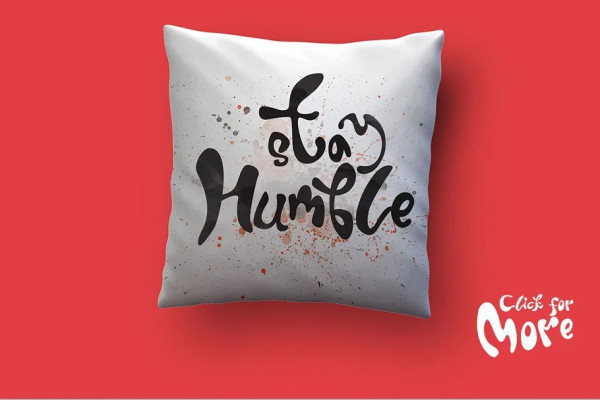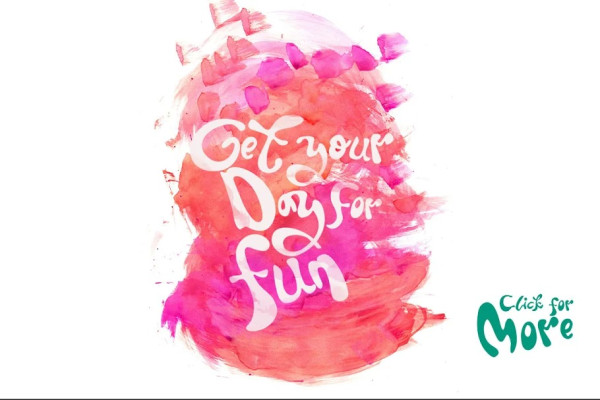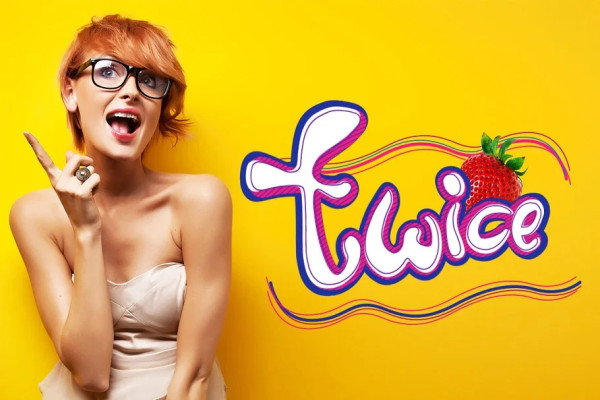
Twice Display Font
Twice Display Font, inspired by bubble and some combinations handwritten letters. wild hand and imperfect flow give the natural looks.  With a childish style, it will be very suitable for your project, which is related to children. Such as story books, illustrations, comic books, t-shirts, posters, greeting cards, logos, branding, stickers, svg, crafting.